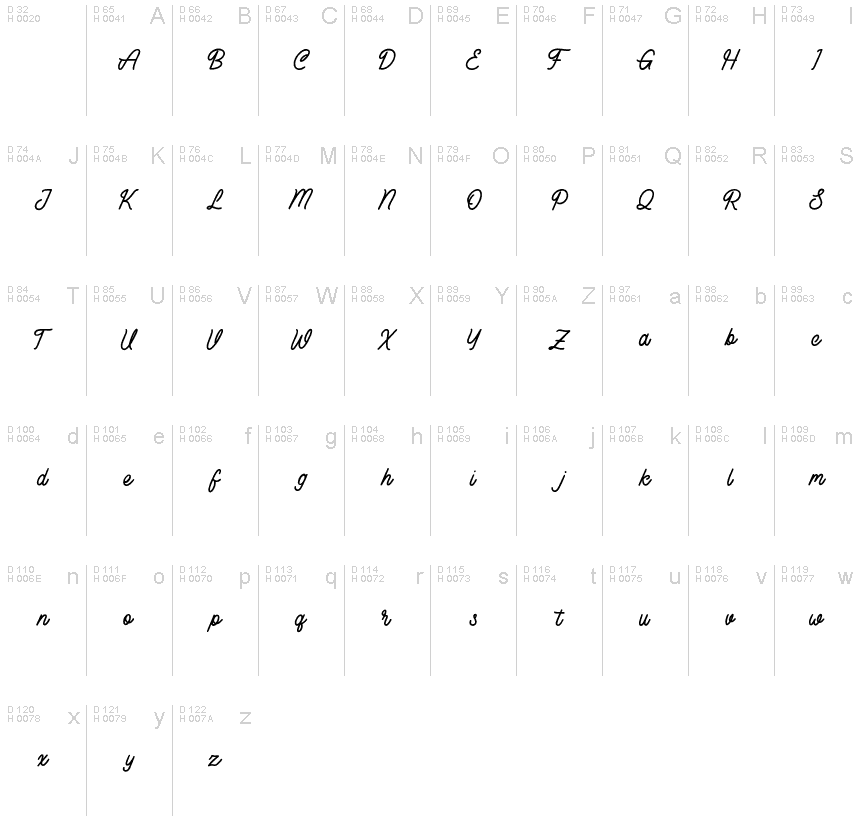
Oldcurley Free Regular
Oldcurley, the vintage script font by Maulana Creative, exudes elegance and nostalgia. Its semi-light weight adds a touch of delicacy to any design project.
Ideal for wedding invitations, this font effortlessly captures the romance of a bygone era. With its graceful curves and ornate details, Oldcurley also lends itself perfectly to branding projects seeking a classic and sophisticated aesthetic. Whether used for packaging designs or logo creations, this font will transport your audience back in time with its timeless charm.
Let Oldcurley bring an air of vintage allure to your next creative endeavor.